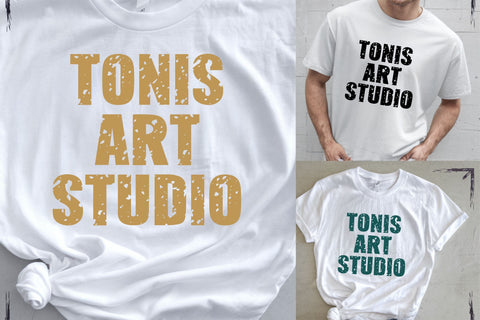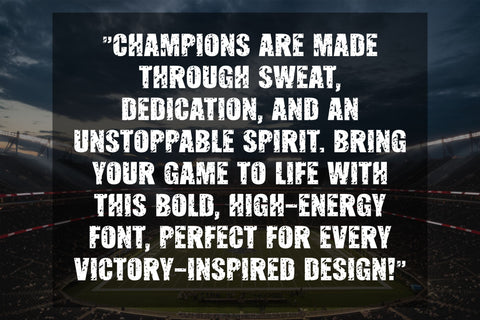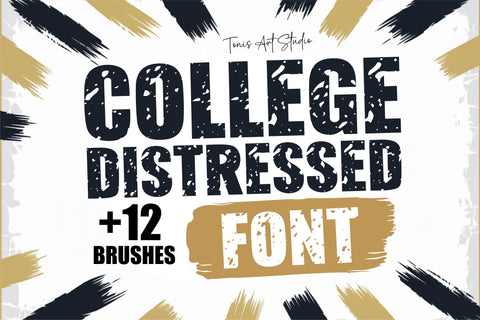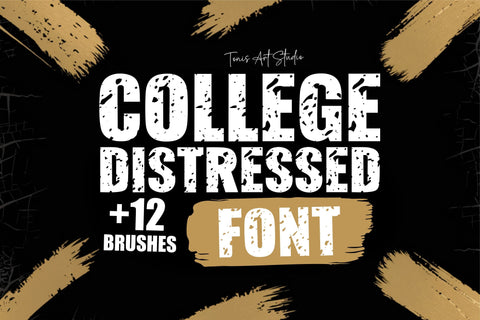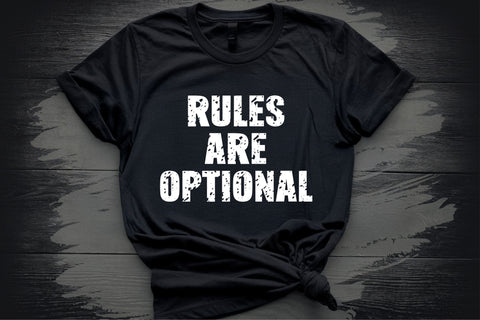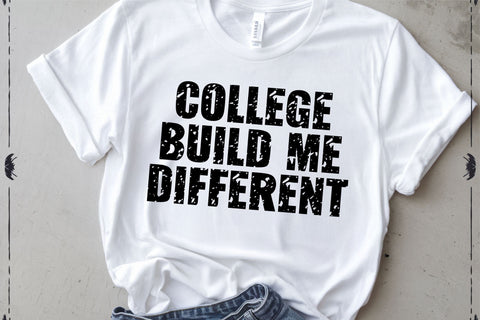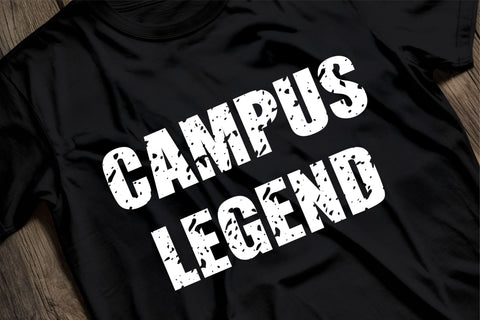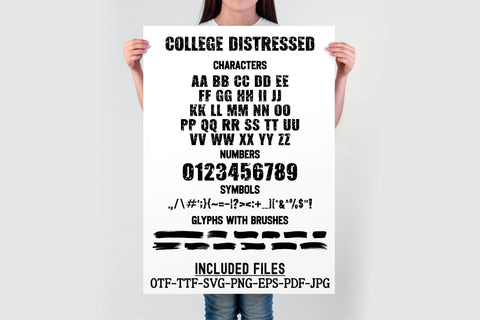
The College Distressed Font is a bold, grunge-style typeface with a rugged, vintage aesthetic. Designed with distressed textures and rough edges, this font is perfect for retro college graphics, posters, t-shirts, logos, and branding.
With a handcrafted aged effect, this font is ideal for designs that need a worn-out, nostalgic feel. Whether you're creating Cricut or Silhouette projects, sublimation prints, apparel, or signage, this font brings a raw, authentic touch to your work.
Includes 12 bonus brushes for extra texture customization, allowing you to enhance the distressed effect.
College Distressed Font – Bold, vintage college-style typeface